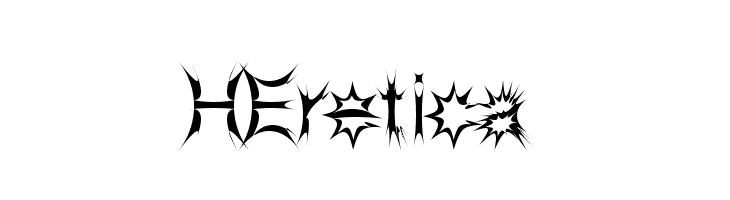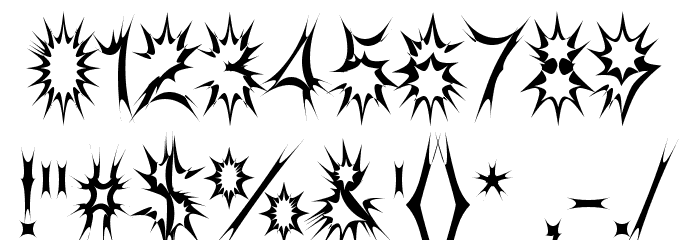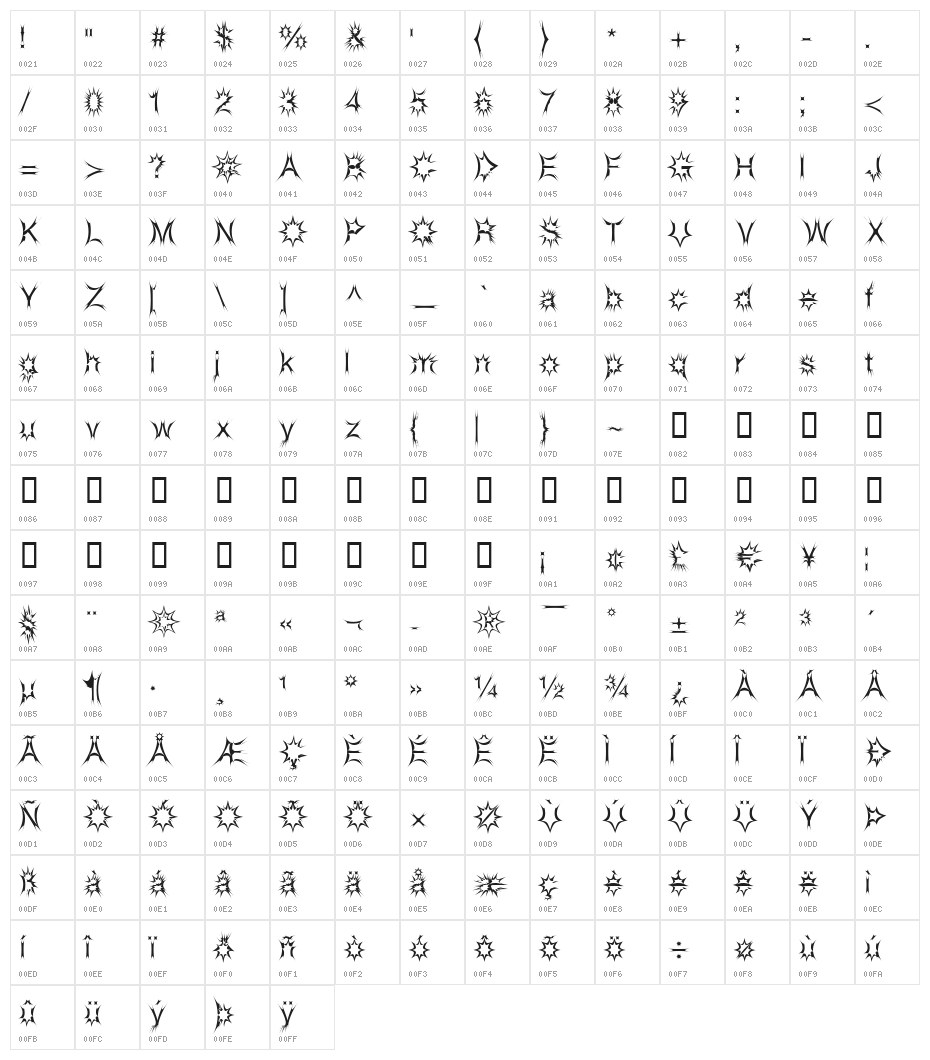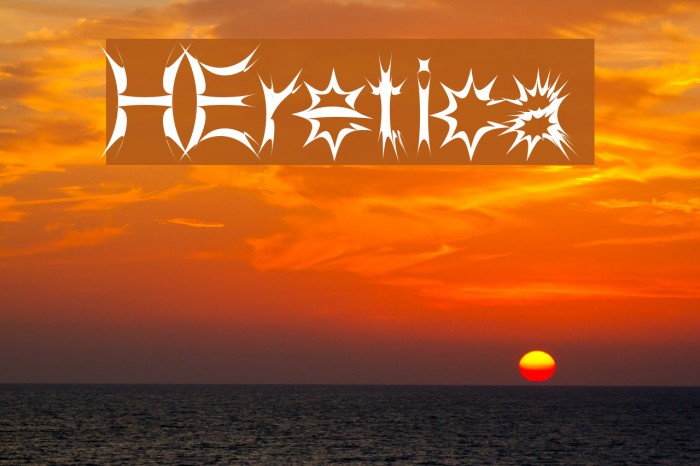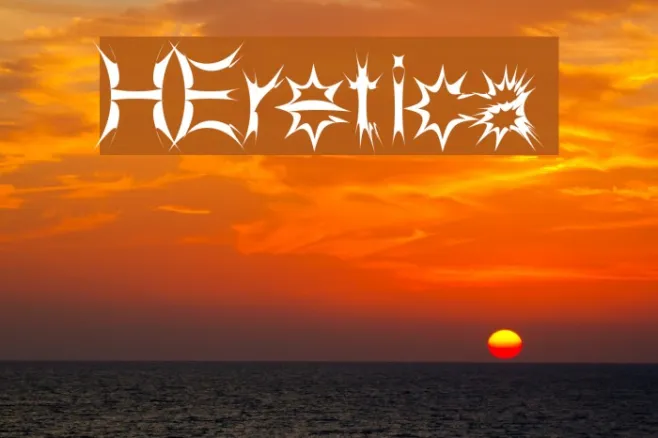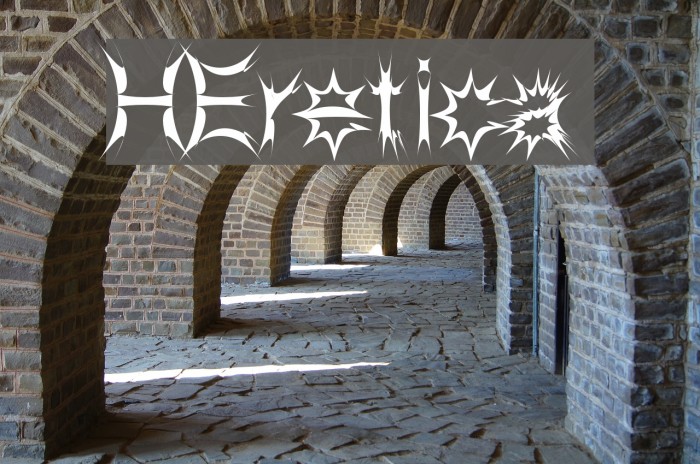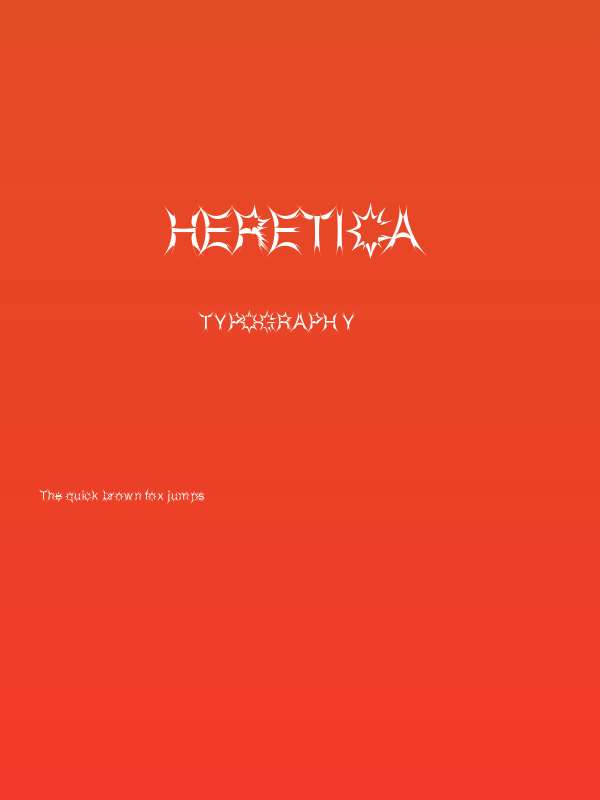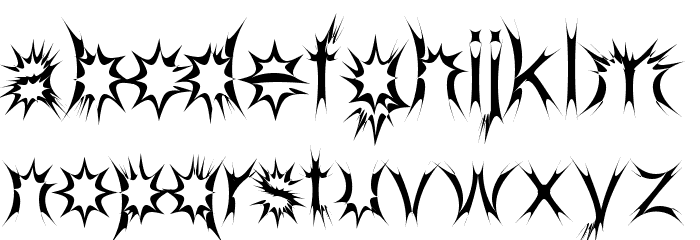
HEretica Font
HEretica Description
This font is a striking and edgy display typeface characterized by its sharp, spiky edges and dynamic, energetic forms. Each letter is designed with an aggressive flair, featuring jagged points and angular lines that create a sense of movement and intensity. The font's unique style is reminiscent of graffiti or heavy metal aesthetics, making it stand out with its bold and unconventional appearance. The uppercase and lowercase letters maintain a consistent theme, while the numbers and special characters continue the dramatic, eye-catching design. This font is perfect for projects that require a strong visual impact and a rebellious or alternative vibe.
| Overall Style | Modern, Edgy |
| Proposed Projects | Ideal for album covers, posters, event flyers, or any design needing a bold, rebellious look. |